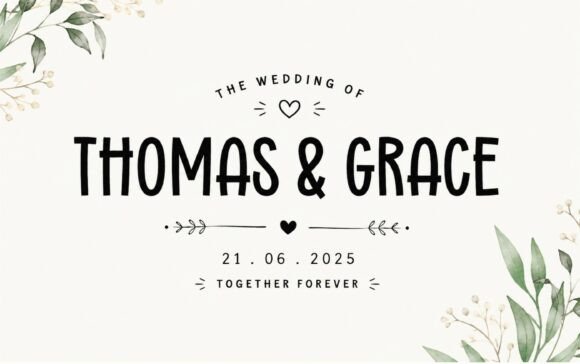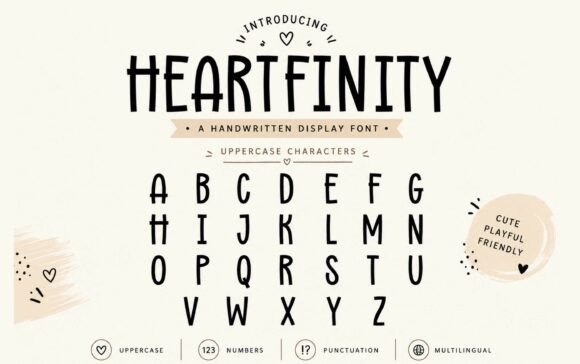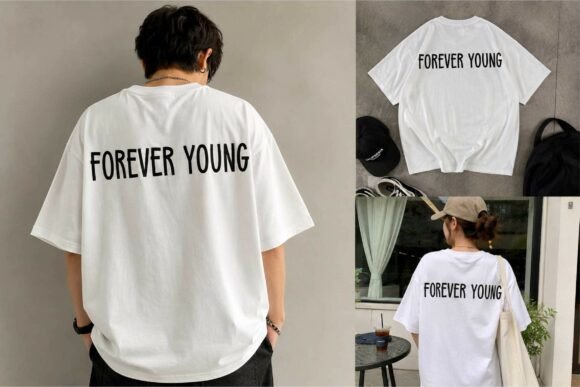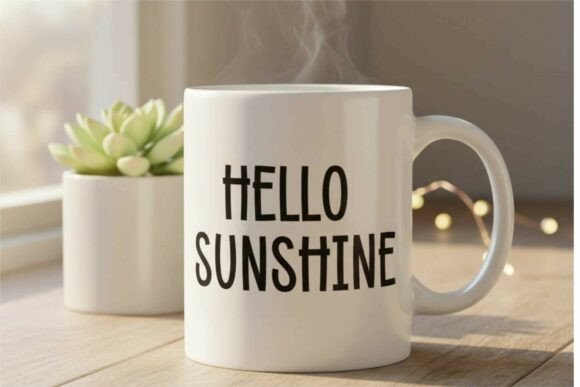
Introduction to Heartfinity Font Font
Fonts play a crucial role in design, and the Heartfinity Font font is a typeface that brings both character and versatility to any project. Whether you’re working on a branding project, a website, or a print design, the Heartfinity Font font offers a unique style that can elevate your work.
Heartfinity is a cute and playful handwritten display font with a unique handmade style.
This font comes with tall characters, fun shapes, and a modern aesthetic look that makes it perfect for many creative projects Heartfinity is ideal for t-shirt designs, mugs, wedding invitations, branding, logos, posters, Cricut projects, social media graphics, stickers, packaging, and more.
Key Features of Heartfinity Font Font
Why Choose Heartfinity Font Font?
The Heartfinity Font font is more than just a typeface – it’s a design tool that helps you communicate your message with style and clarity. Its unique character set and versatile design make it suitable for a wide range of applications, from elegant invitations to bold headlines.
With its carefully crafted letterforms and balanced proportions, the Heartfinity Font font ensures readability and visual appeal across all mediums.
What makes Heartfinity Font font special?
The Heartfinity Font font stands out with its unique design, exceptional readability, and versatility across various design applications.